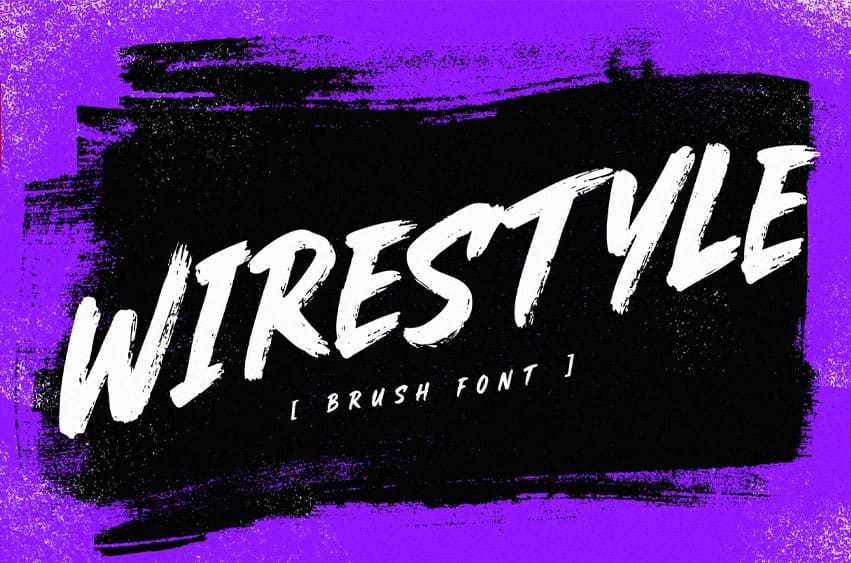
Wirestyle Font is a thick, brush display font perfect for print and packaging design. It currently comes with support for Uppercase, Numbers & Punctuation.